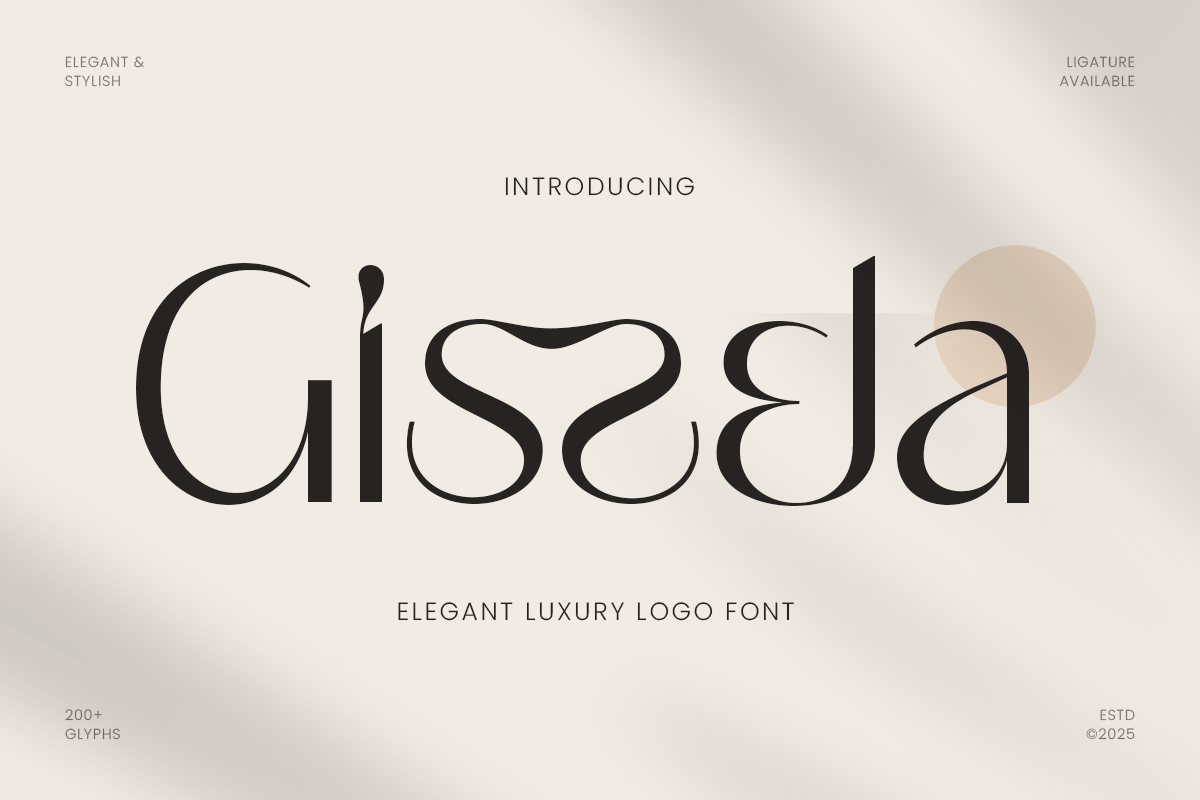
January 2026 Design Ideas, Holidays, and Font Inspiration
January is the perfect time for a visual reset. Explore fresh design ideas, key holidays, and font inspiration for January 2026 to create campaigns that feel clean, modern, and relevant.
January is more than the first page of the calendar. For designers, it is the visual reset button and January has a very specific energy. People are resetting habits, updating plans, and looking for momentum.
That is what makes January such a strong month for seasonal design. It is not only about New Year content. It is about giving brands a chance to reintroduce themselves with more clarity, stronger visual focus, and a more polished identity. This makes January ideal for:
brand refresh content
campaign launches
motivational posts
planning-related visuals
minimal product banners
polished editorial-style social media graphics
January Color and Visual Theme Ideas
Color direction in January should feel fresh but grounded. This is not the month for chaotic palettes. Instead, the best January visuals often rely on crisp neutrals and calm color accents. Here are a few palette directions that work well:
white and soft gray for a minimal reset mood
cool blue for clarity and calm confidence
muted gold for premium new-year elegance
crisp neutrals for modern brand refresh content
soft monochrome palettes for polished editorial layouts
These colors help create space in a design. They make layouts feel lighter, cleaner, and more intentional. Even when a brand uses stronger signature colors, January content often benefits from toning them down slightly and pairing them with more neutral foundations. Visually, January works well with:
generous white space
simple grid layouts
minimal decorative elements
refined hierarchy
typography-led compositions
The goal is to make the content feel like a deep breath after the visual noise of the holiday season.
Font Alternative for January
Gissela - Modern Classy Logo Font
Gissela is an Modern Classy logo font crafted to bring sophistication, beauty, and timeless refinement to your branding projects. With its graceful curves, high-contrast serifs, and meticulously balanced letterforms, this typeface evokes the essence of premium fashion, boutique identity, and upscale editorial design.
Naster - Modern Classy Branding Serif Font
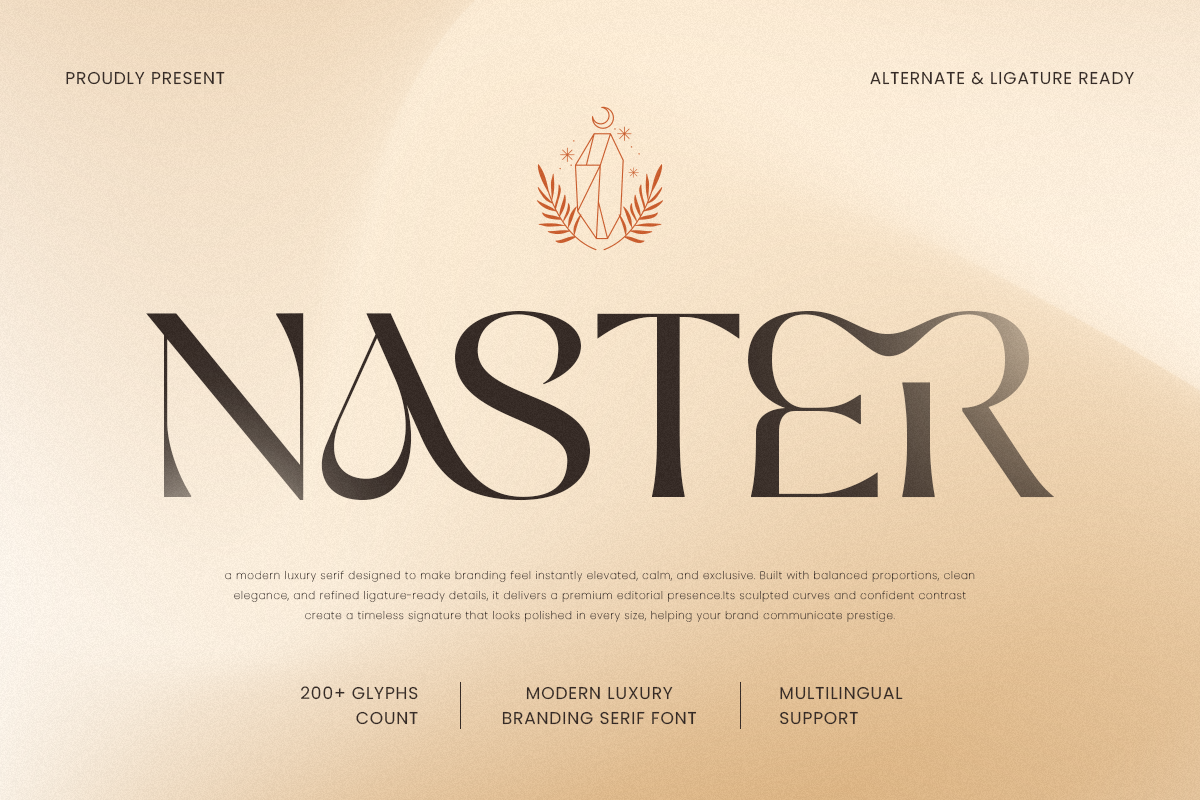
Naster is a modern luxury branding serif font designed to deliver refined sophistication with a polished contemporary edge. Featuring graceful serif details, balanced proportions, and a confident premium rhythm, this typeface creates a visual tone that feels elegant, stylish, and instantly brand-ready.
Camfort - Modern Headline Serif Font
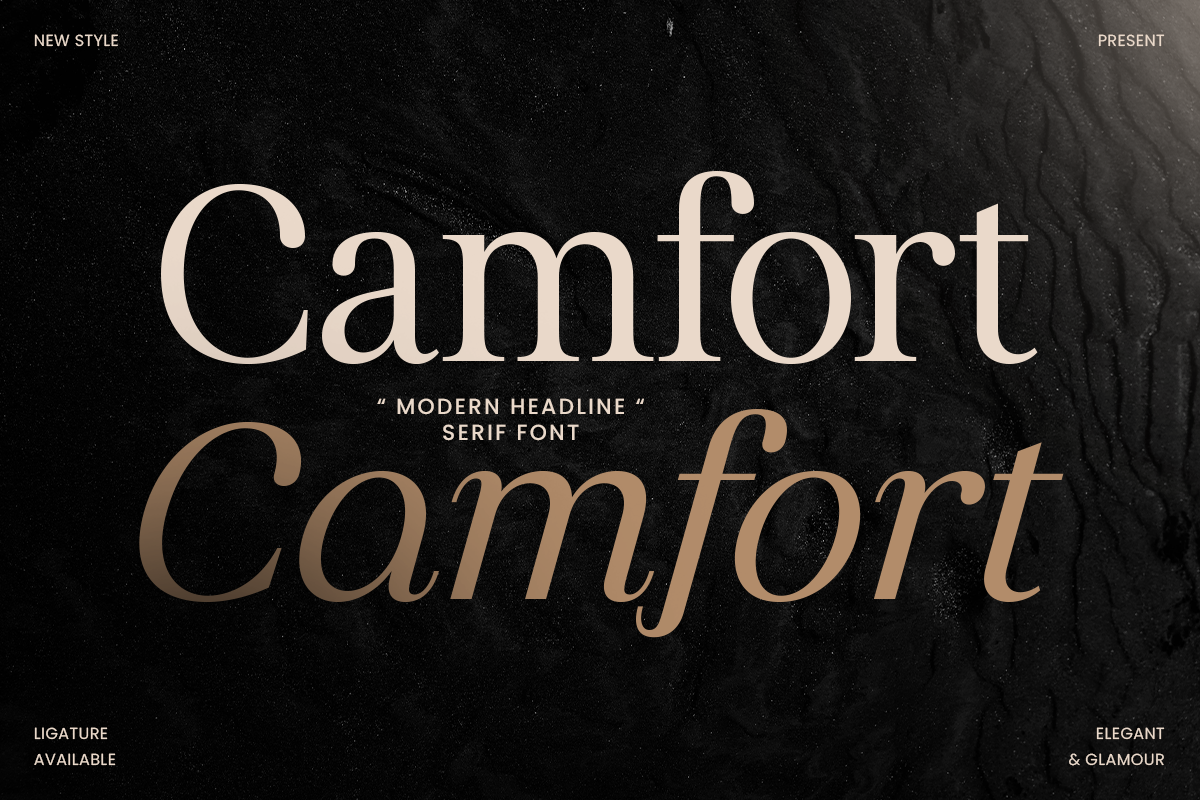
Camfort is a modern headline serif font crafted to deliver bold elegance with a refined contemporary presence. With polished serif details, balanced proportions, and a confident visual rhythm, this typeface creates a premium tone that feels stylish, sophisticated, and instantly attention-grabbing.
Bonita - Elegant Serif Logo Font
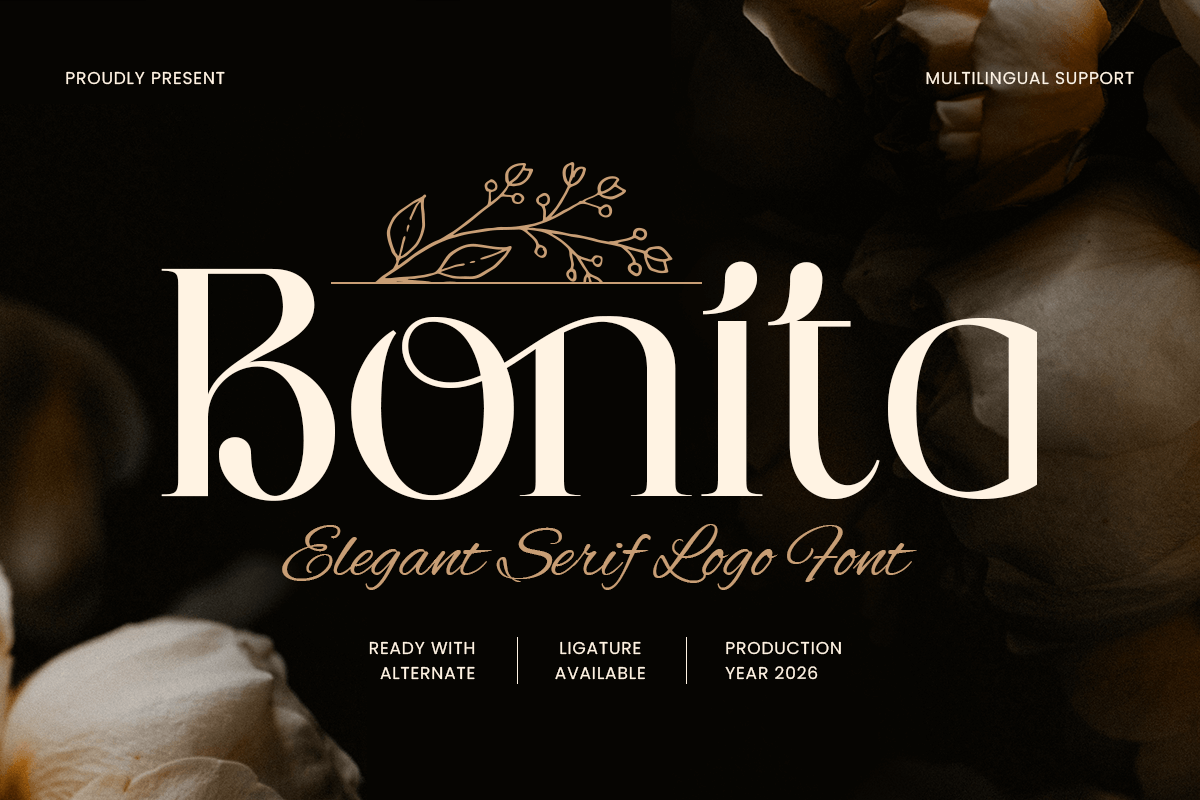
Bonita is an elegant serif logo font designed to deliver refined sophistication with a clean, modern edge. With graceful serif details, balanced proportions, and a polished rhythm, this typeface creates a premium visual tone that feels timeless, confident, and instantly brand-ready.
Naomi - Elegant Branding Serif Font
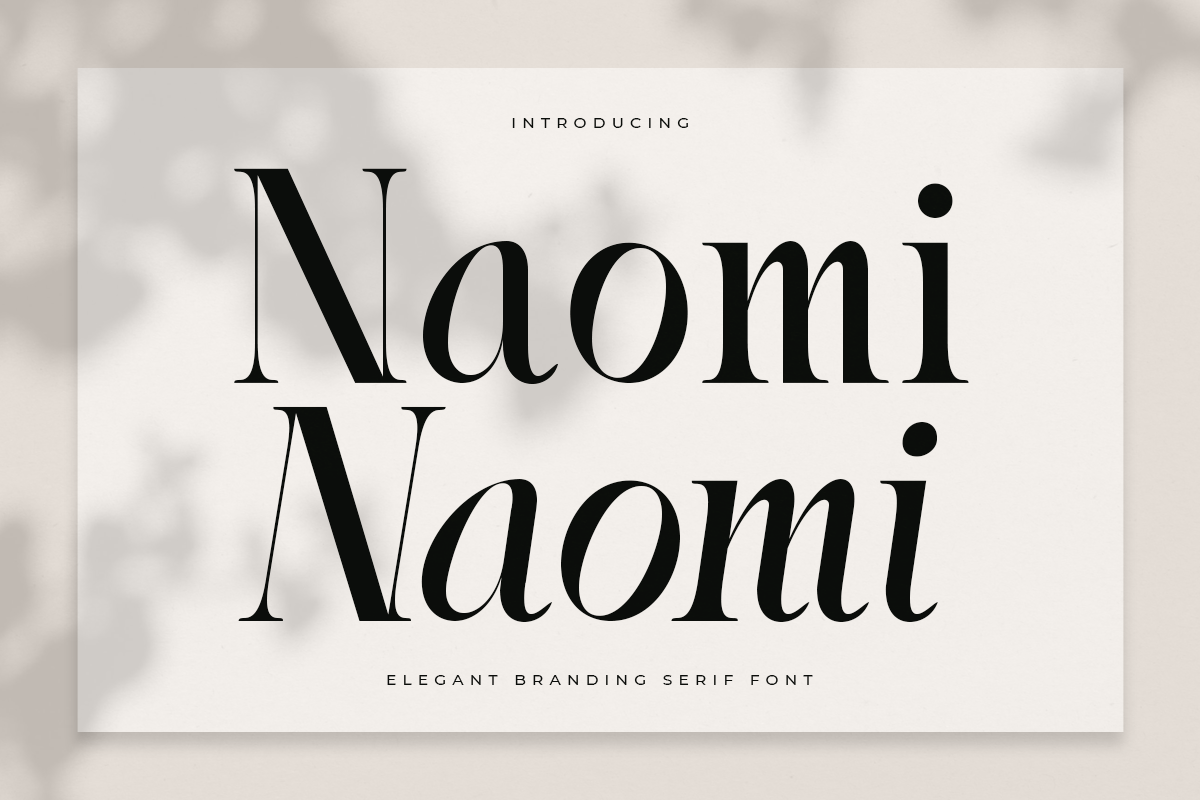
A Serif font that we created special for elegant branding needs, with extra ligature and alternates in unique shape will be ready to add value to your brand. It is so nice to leverage designer or product owner that need solutions to make their design look more stylish and modern.
Q: What are the best January design themes for 2026?
A: The strongest January themes are fresh starts, clarity, planning, minimalism, gratitude, and optimistic branding.
Q: What fonts work best for New Year campaigns?
A: Clean sans serif fonts work well for modern fresh-start visuals, while elegant serif fonts add a more premium and polished tone.
Q: How can designers create fresh-start visuals in January?
A: Use clean layouts, restrained color palettes, clear hierarchy, and typography that feels structured and confident.
Q: What kind of branding content works well in early January?
A: Brand refresh teasers, goal-setting carousels, thank-you posts, inspirational quote graphics, and early-year campaign banners all work well.
Q: What colors fit January campaign design?
A: White, soft gray, cool blue, muted gold, and crisp neutral tones are strong choices for January visuals.
January is one of the most useful months in the design calendar because it gives brands permission to reset. It creates space for fresh-start branding, clean campaign design, and visuals that feel modern, intentional, and motivating.
For designers, this is the perfect month to build content around clarity, optimism, and refinement. Whether you are creating a New Year campaign, a thank-you post, or a subtle identity refresh, the strongest January visuals usually come from simple ideas executed with confidence.